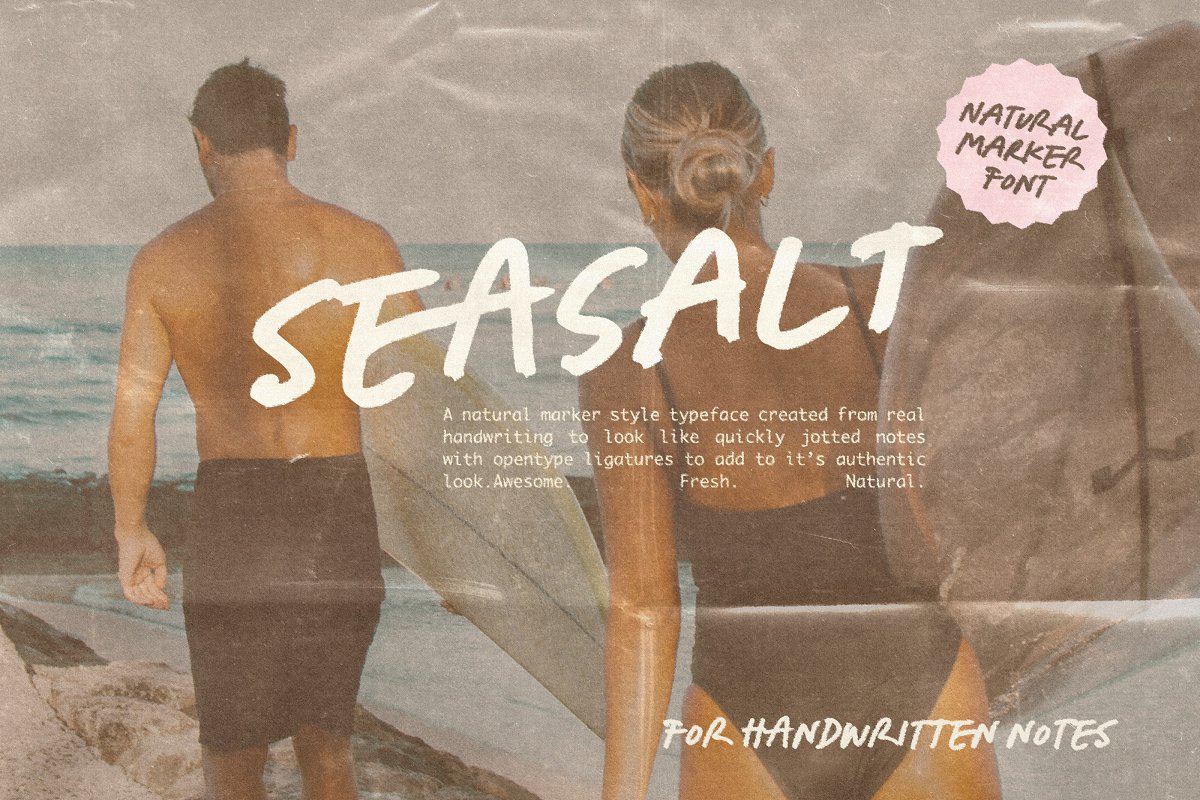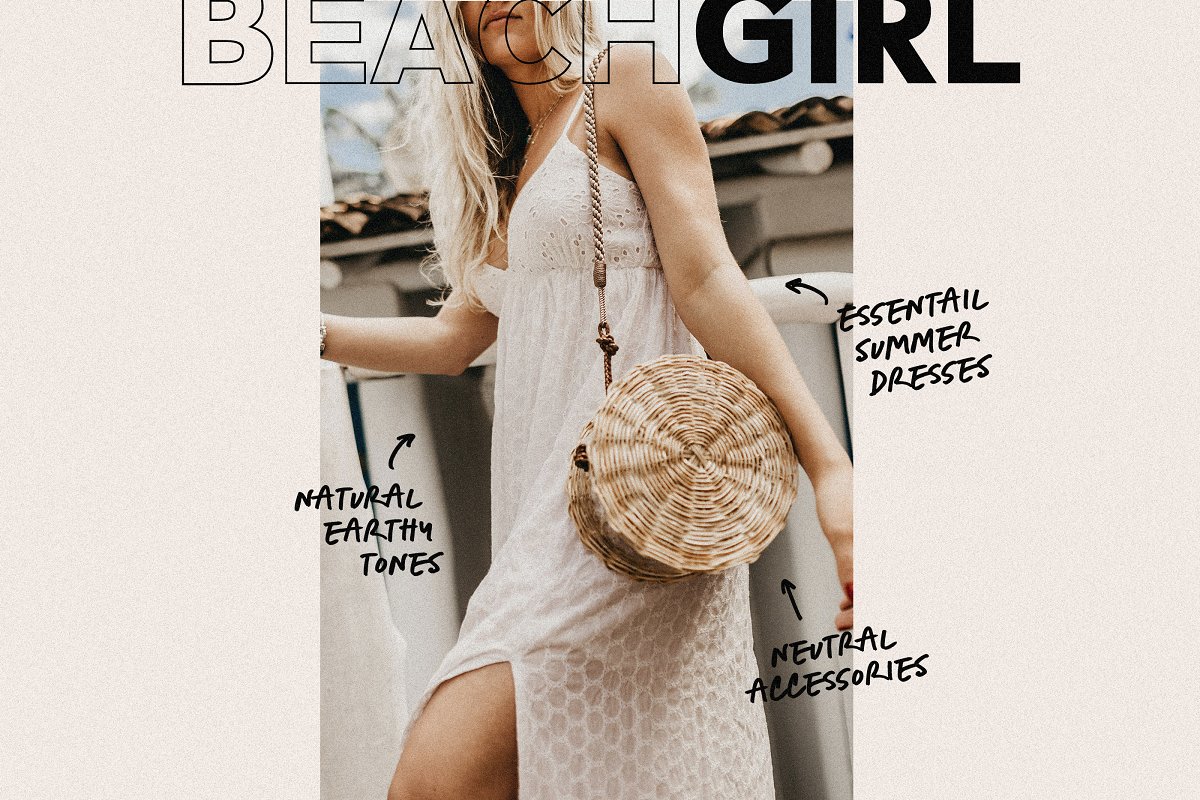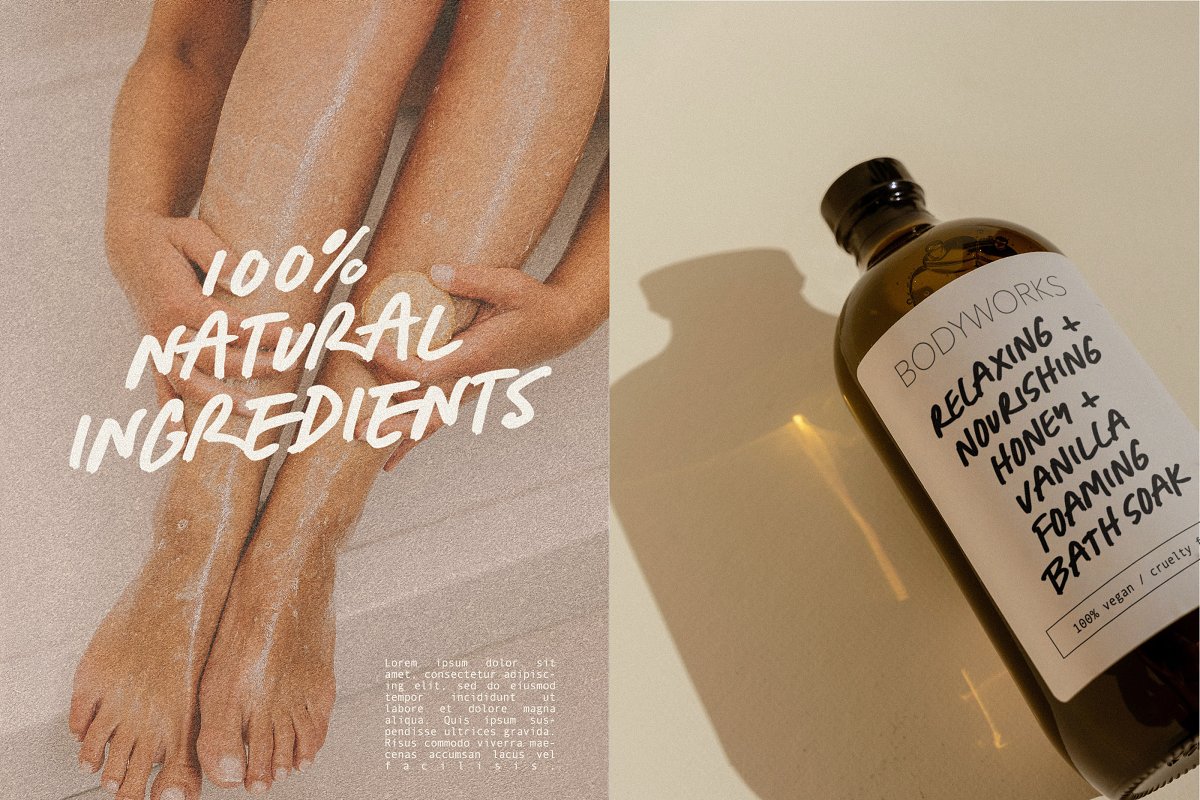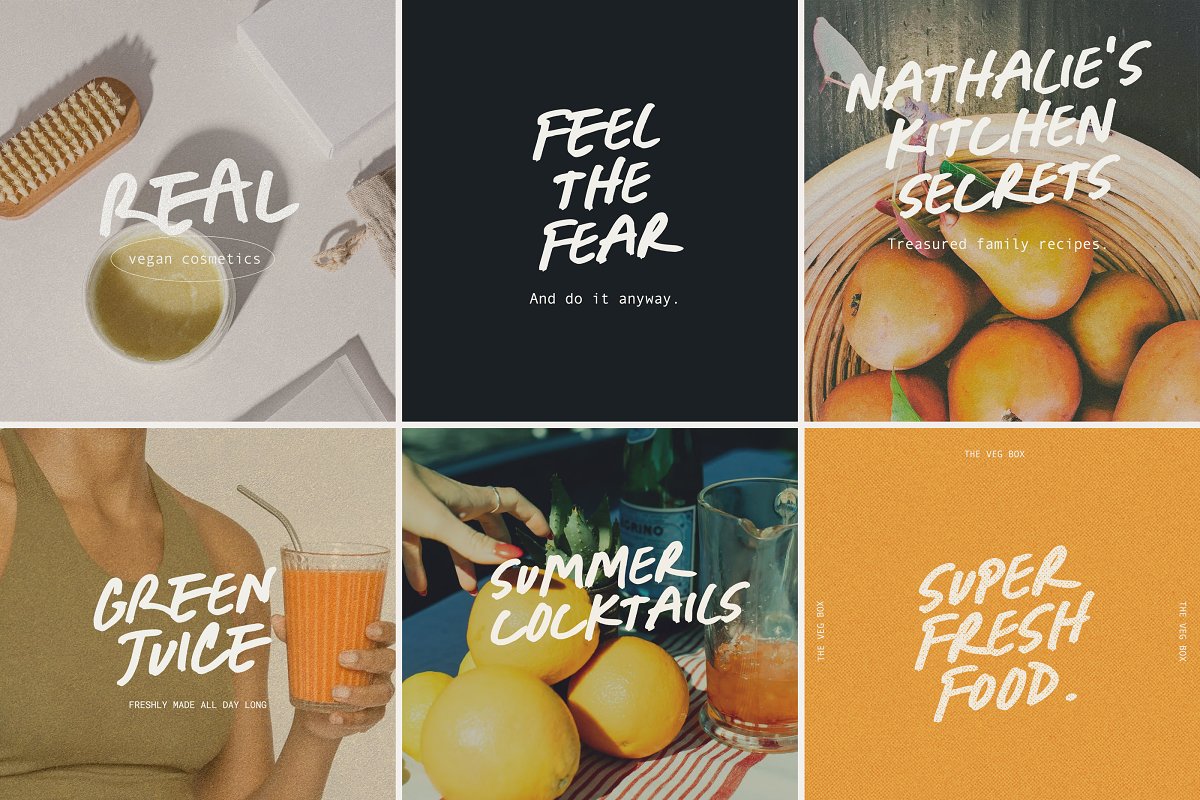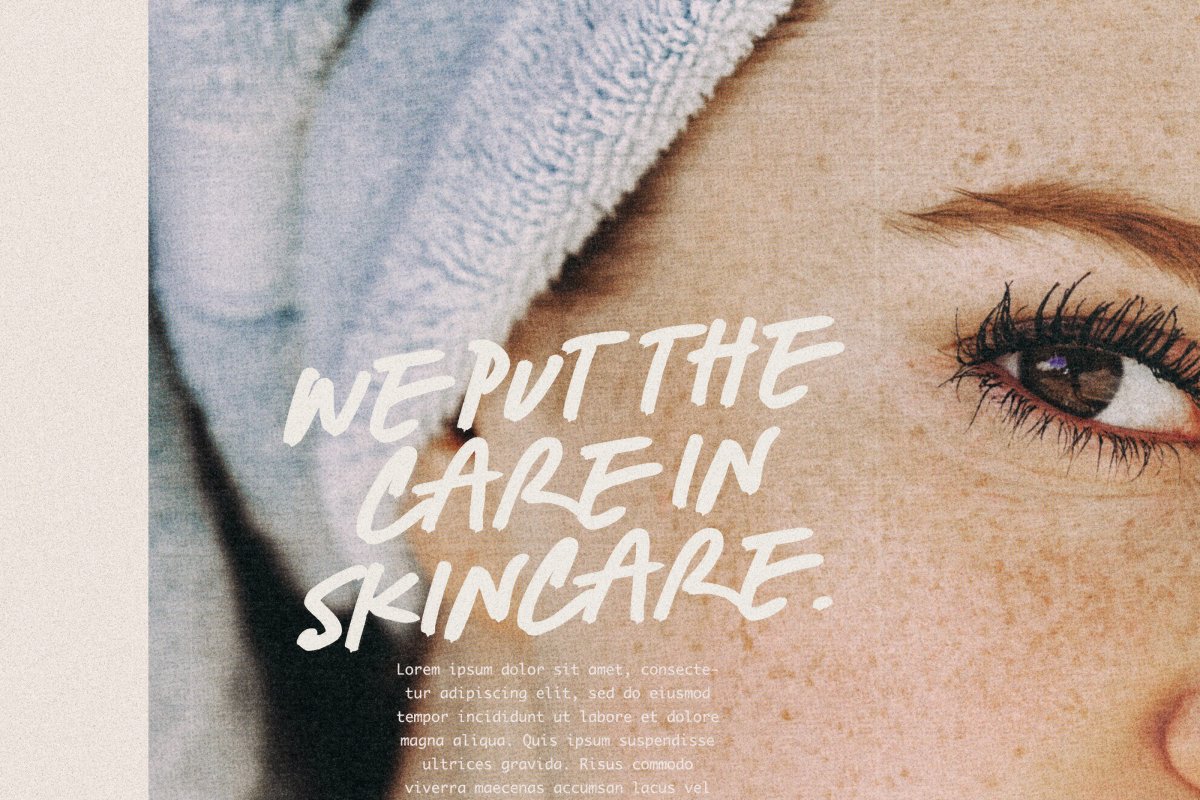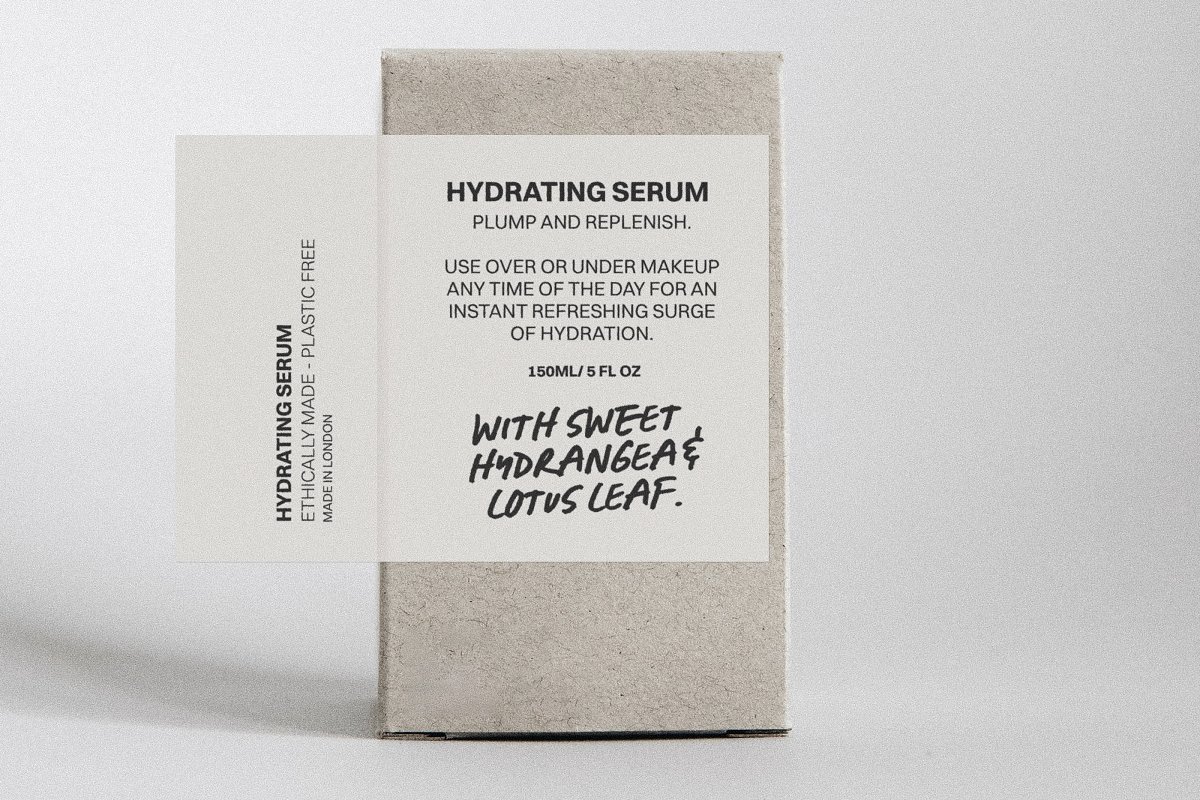
Seasalt Casual Marker typeface Font Free Download
About the Seasalt Casual Marker typeface
A breath of fresh air! Seasalt typeface was designed to emulate natural-looking handwritten notes, Opentype ligatures are included to make the typeface appear more realistic and last but not least, it includes a doodles font – arrows, scribbles and scrawls to help your designs pop!The typeface comes in three different variants to suit the look you are after : Upright, Regular and Slanted